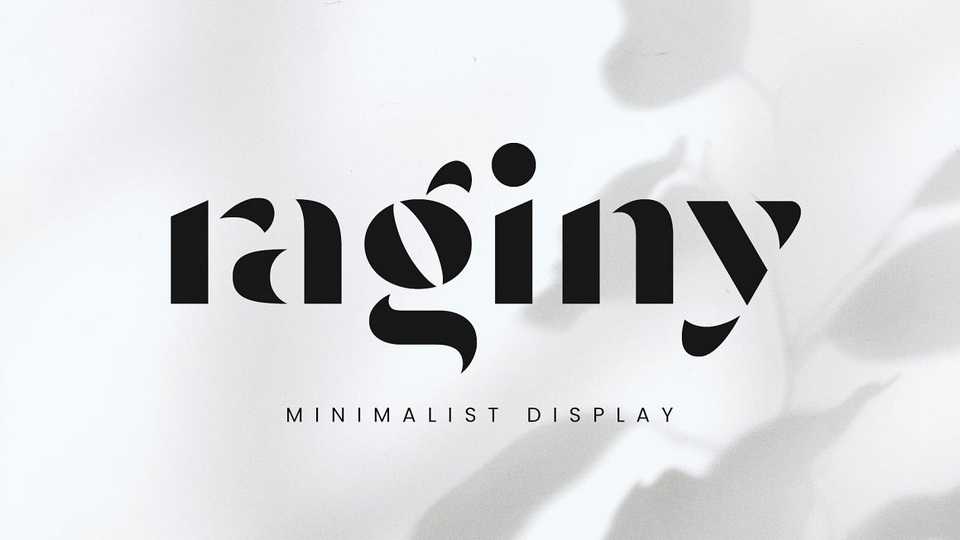
Download Raginy font, a sans serif in a stencil style. Raginy is made by paying attention to the distinctive elements of each letter, then eliminating the secondary parts and only highlighting the main elements of the letter so that it looks minimalist and elegant.